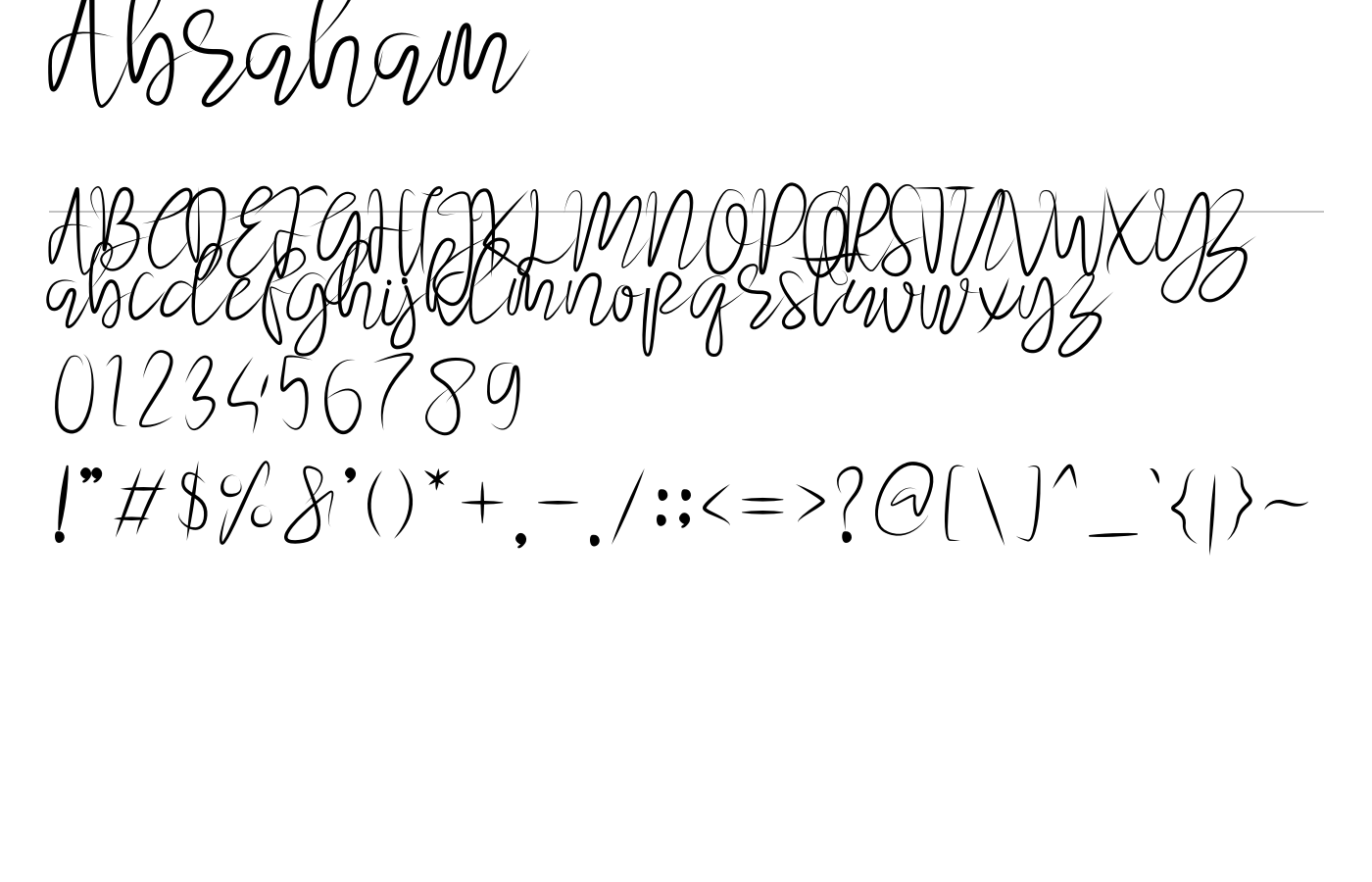
Abraham Font is a delicate, handwritten script with elegant, flowing strokes that create a graceful and personal feel. Its thin, slightly whimsical lines and tall, narrow letterforms make it perfect for invitations, branding, and creative projects seeking a stylish and intimate touch. This font adds a charming, handcrafted vibe that works beautifully in designs aiming for warmth and sophistication.
Abraham Font
About Abraham Font